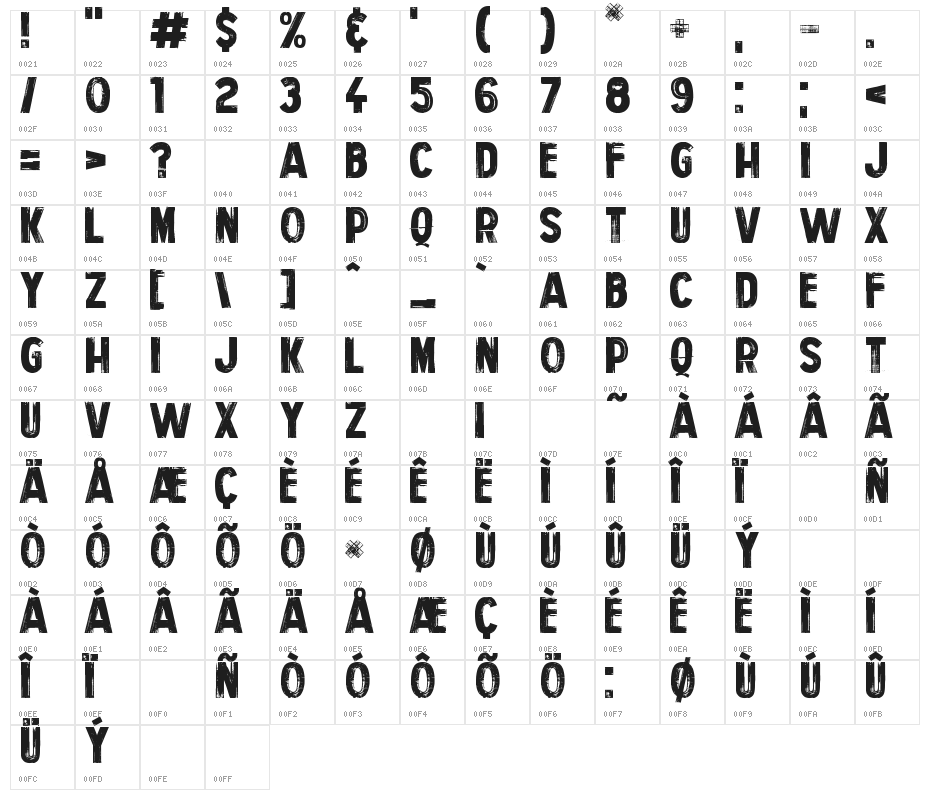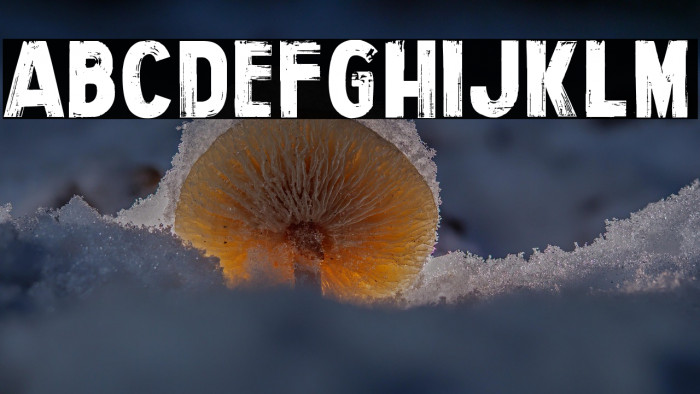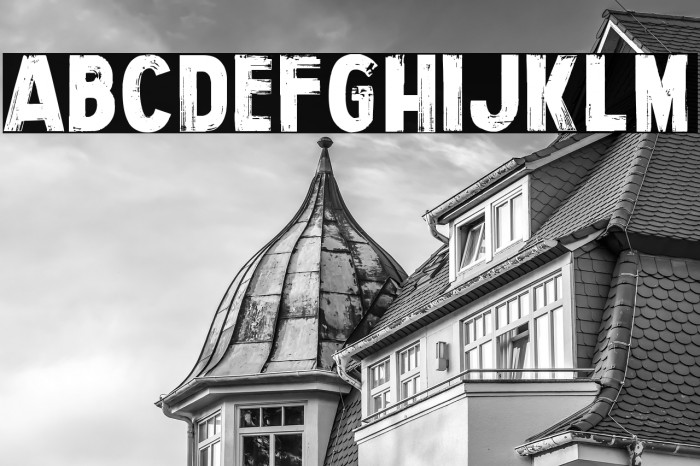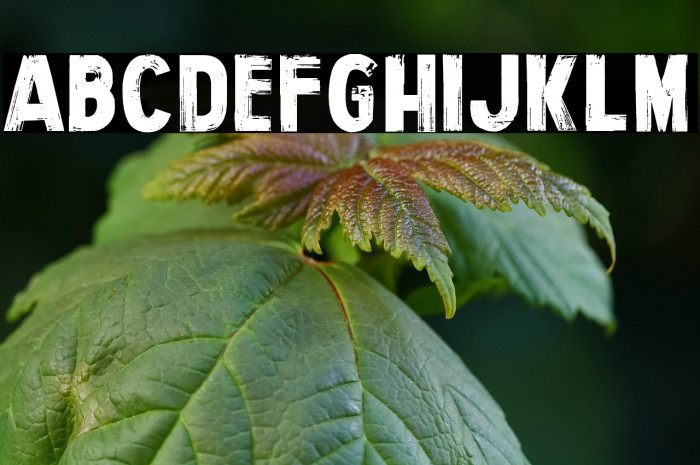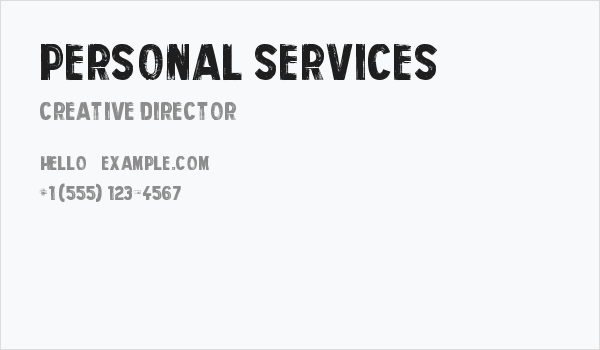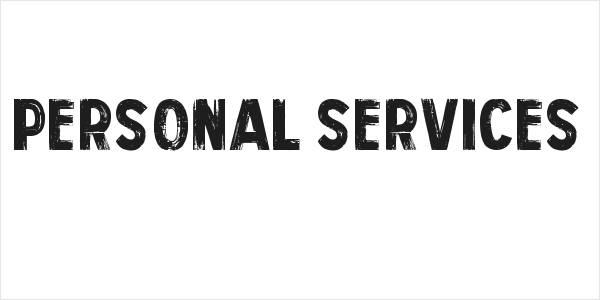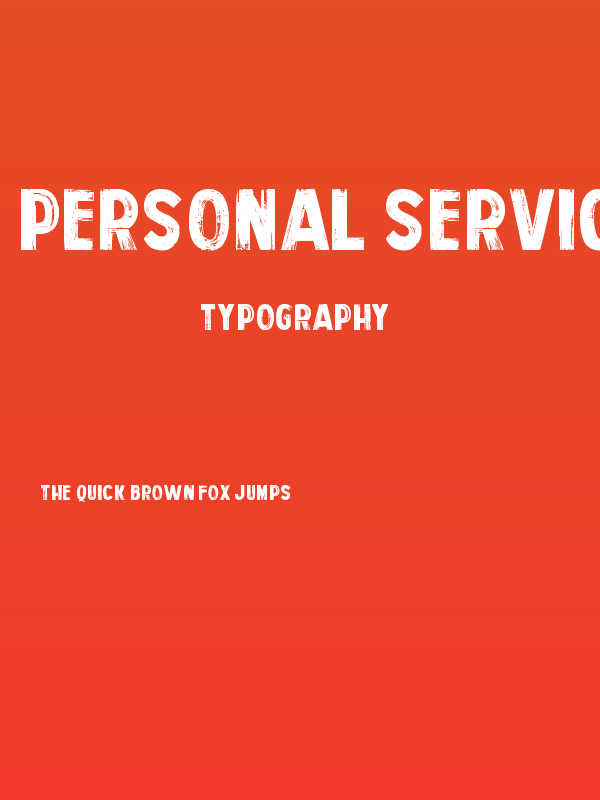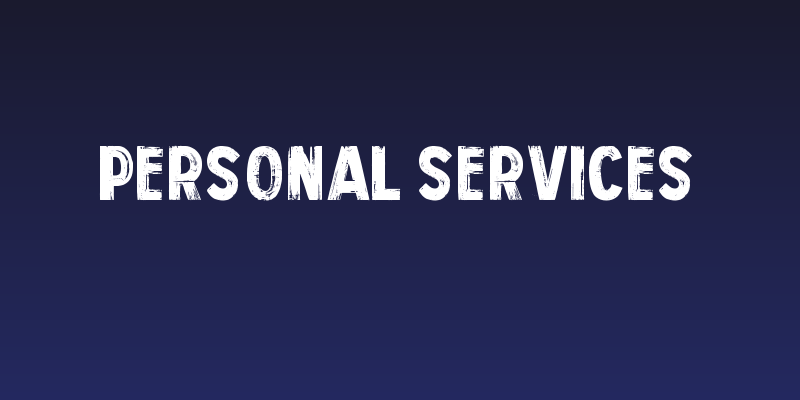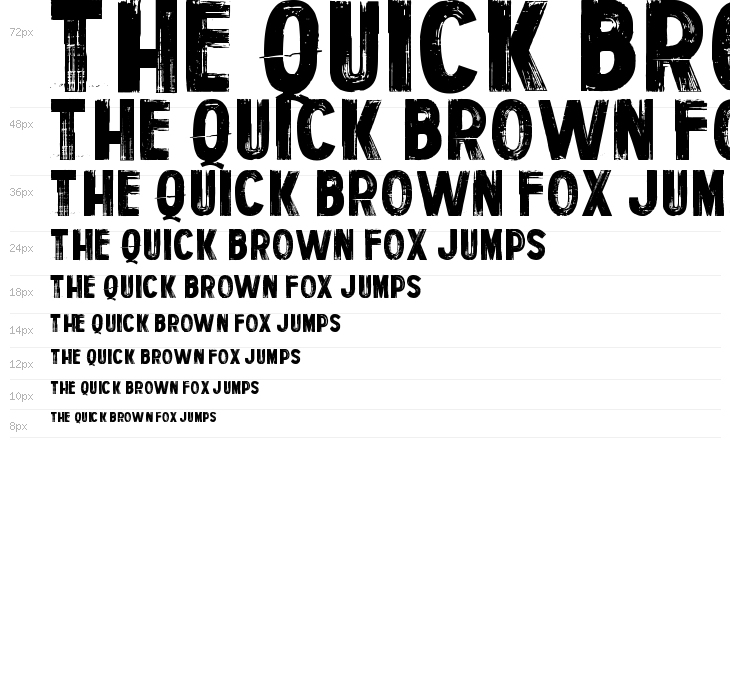
Personal Services Font
Personal Services Description
This font features a bold, distressed style with a grunge texture that gives it a rugged and edgy appearance. The characters are uppercase and numerals, each exhibiting a worn and weathered look, as if they have been eroded over time. The strokes are thick and uneven, adding to the font's raw and dynamic feel. This design is perfect for projects that require a bold statement or a vintage, industrial aesthetic. The irregularities in the texture provide a unique character to each letter, making it stand out in any design.
| Overall Style | Vintage, Industrial |
| Proposed Projects | Ideal for posters, album covers, branding for edgy products, or any design needing a vintage or industrial touch. |